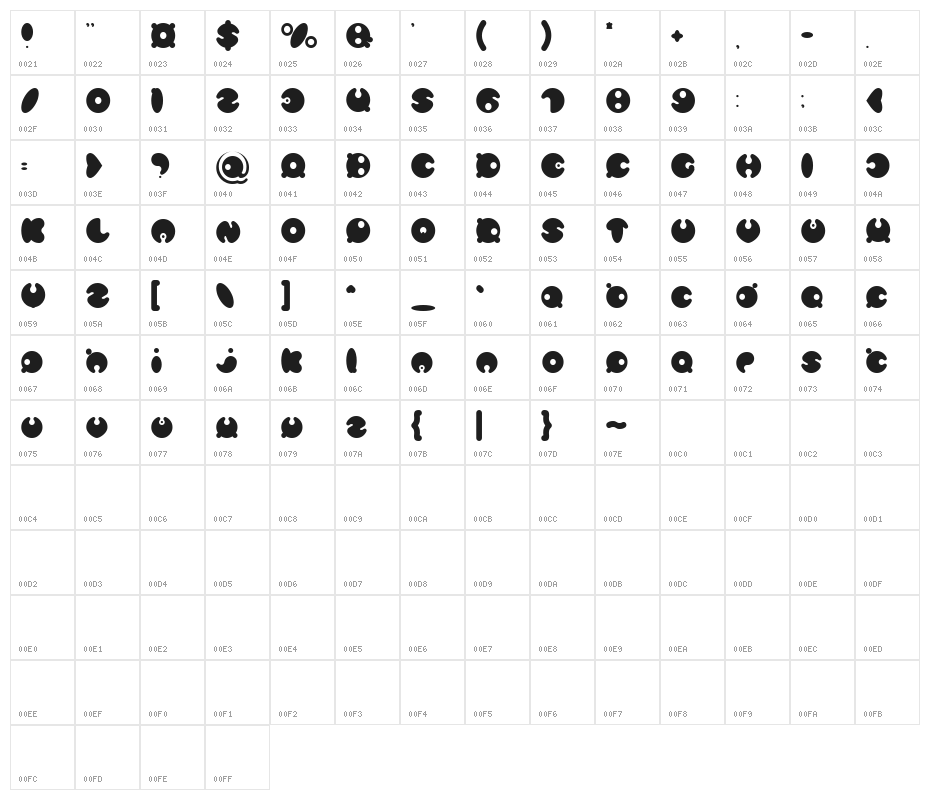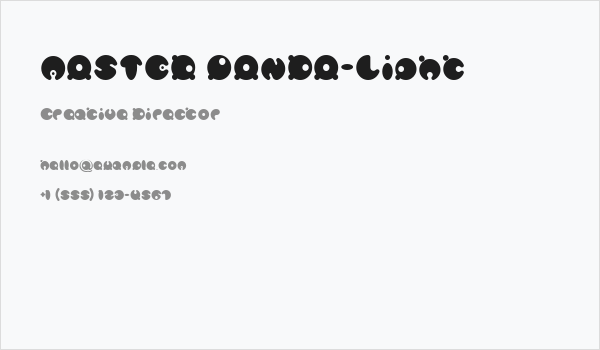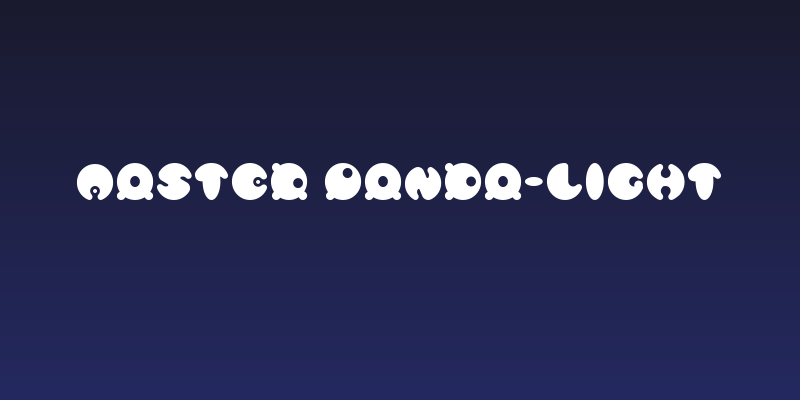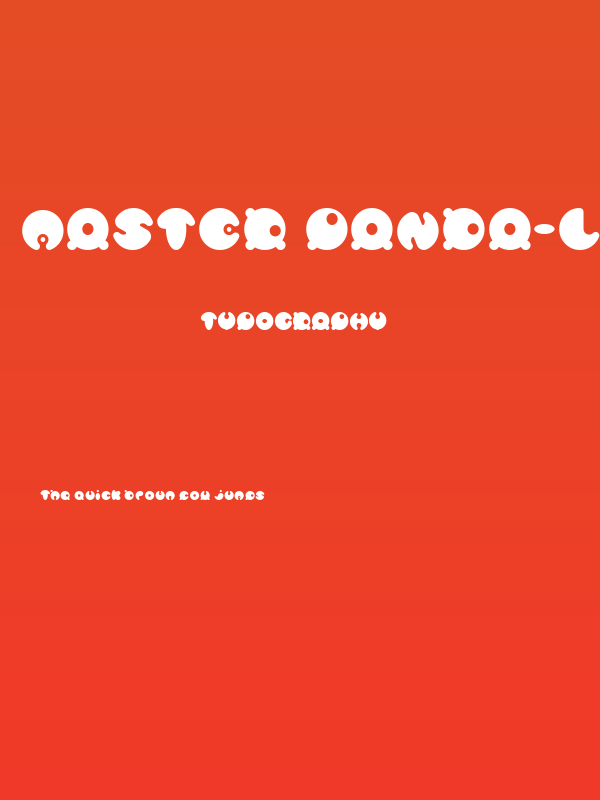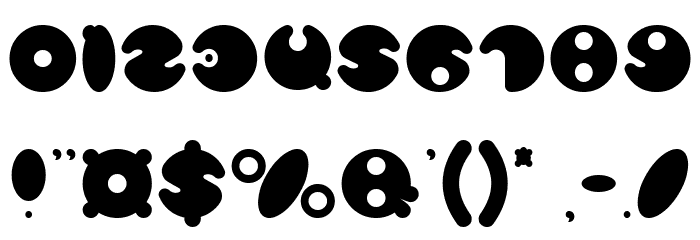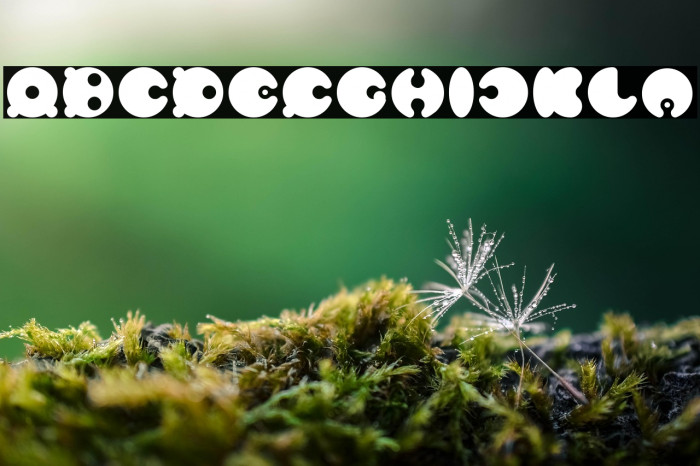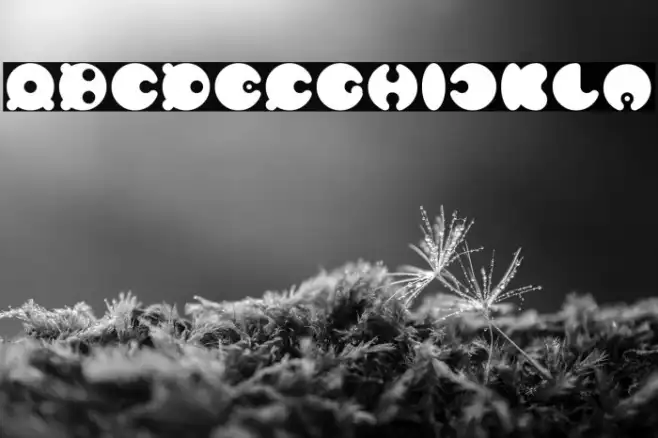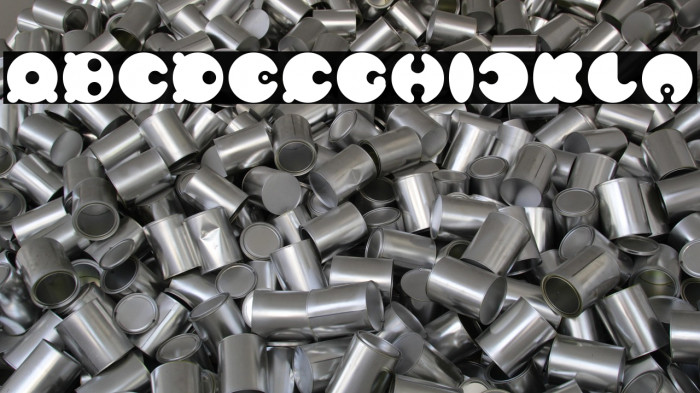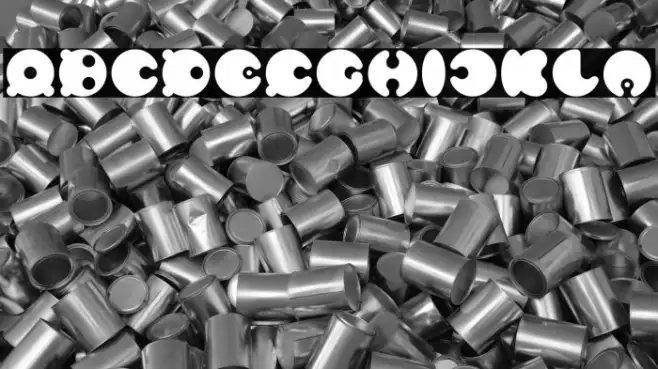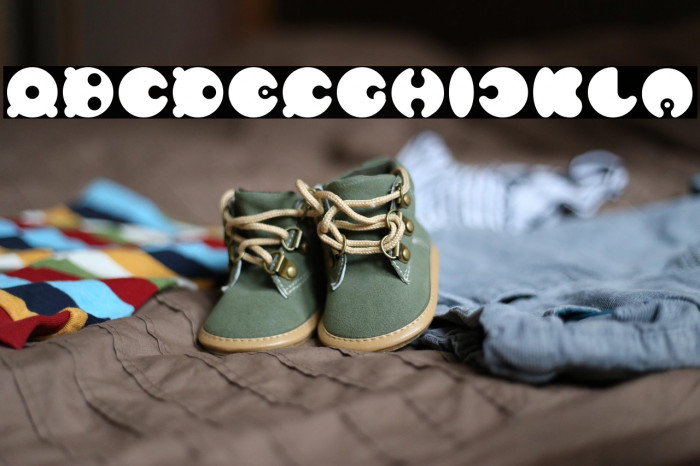
MASTER PANDA-Light Font
MASTER PANDA-Light Description
This font features a playful and bold design with rounded, bubble-like characters. Each letter is crafted with a unique, circular form that incorporates small cutouts, adding a whimsical touch. The overall appearance is reminiscent of cartoon or comic styles, making it highly distinctive and eye-catching. The characters are evenly spaced, providing a balanced and consistent look across all text. This font is ideal for projects that require a fun and engaging aesthetic, such as children's books, playful branding, or creative posters.
| Proposed Projects | Ideal for children's books, playful branding, creative posters, and comic-style designs. |